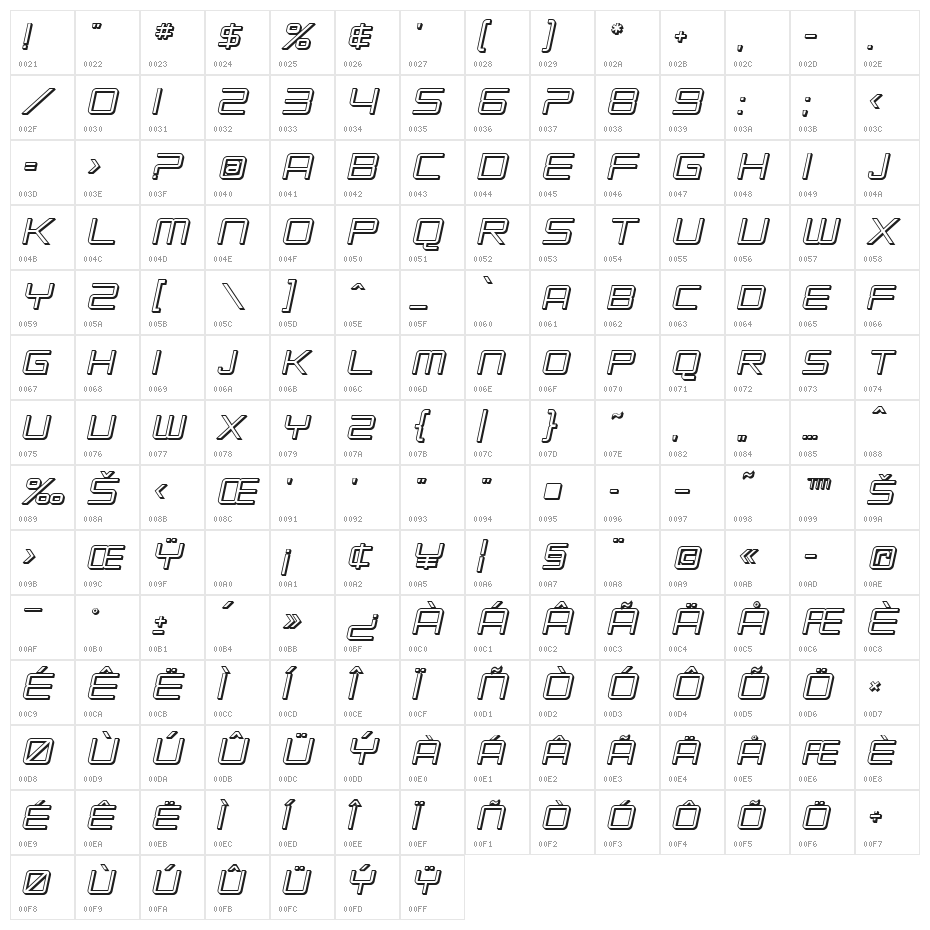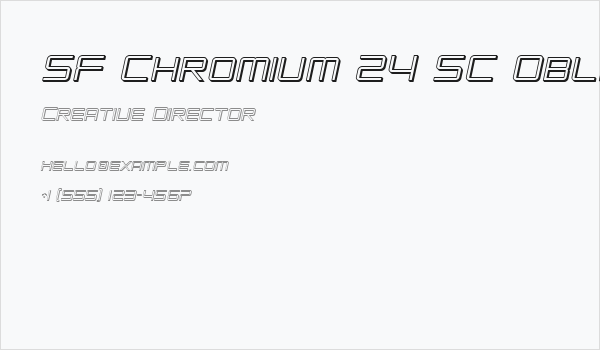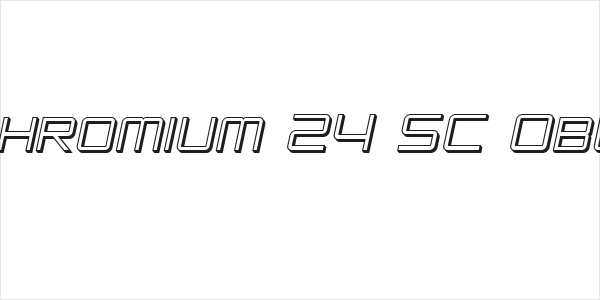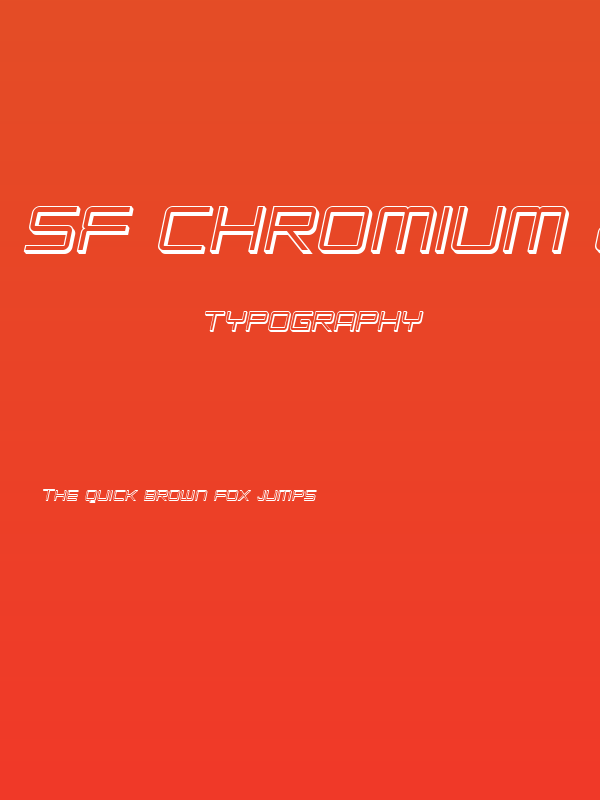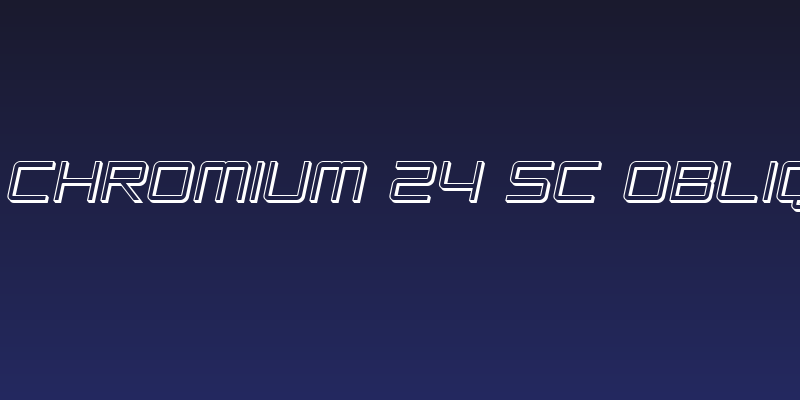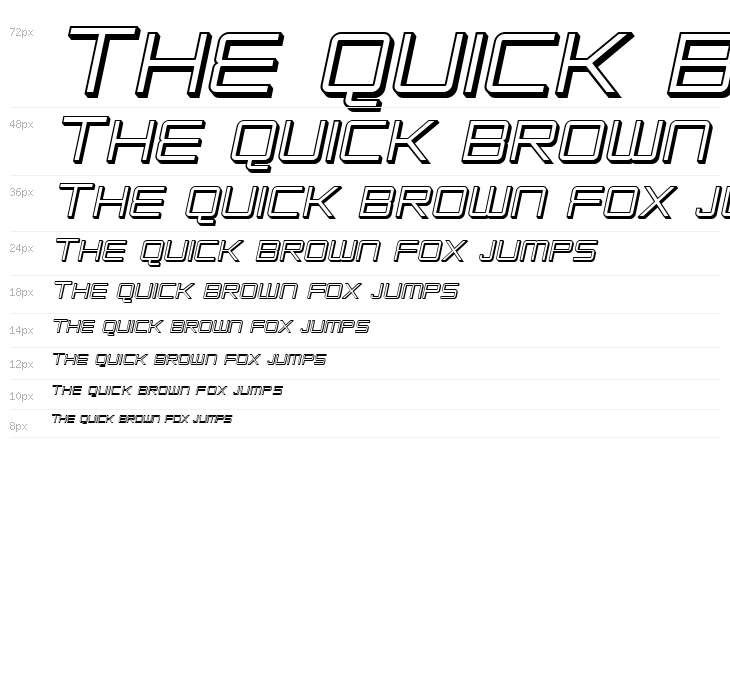
SF Chromium 24 SC Oblique Font
SF Chromium 24 SC Oblique Description
This font features a futuristic and geometric design with a distinct oblique style, characterized by its sharp angles and clean lines. The characters are outlined, giving them a hollow appearance, which adds to the modern and sleek aesthetic. The uppercase and lowercase letters maintain a consistent style, with a slight slant that enhances the dynamic look. Numbers and special characters follow the same design principles, ensuring uniformity across all glyphs. The font's structure is both bold and minimalistic, making it suitable for projects that require a contemporary and tech-inspired feel.
Proposed ProjectsIdeal for technology branding, sci-fi themed designs, video game interfaces, and modern advertising campaigns.